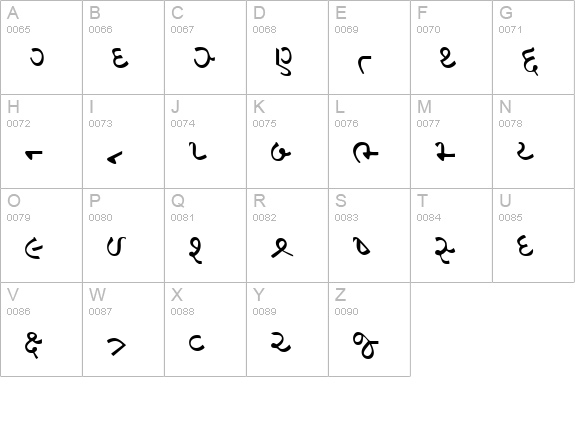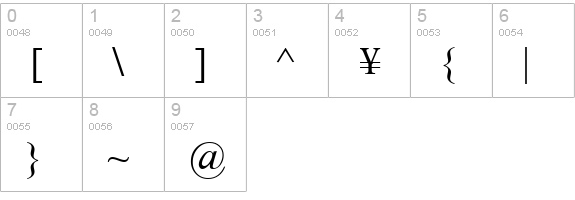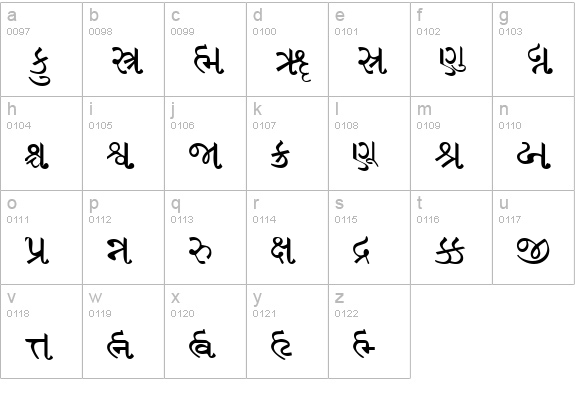
GujaratiRajkotSSK Font Details
GujaratiRajkotSSK font is a beautiful and elegant typeface designed specifically for writing in the Gujarati script. This font is perfect for adding a touch of traditional charm to your projects, whether they are for personal or professional use. With its intricate detailing and graceful curves, GujaratiRajkotSSK font is sure to make your text stand out and leave a lasting impression. The best part about GujaratiRajkotSSK font is that it is available for free download at FontsMarket.com. You can easily access this stunning font and use it in a variety of creative ways without any cost. Whether you are designing invitations, creating graphics, or simply adding a unique flair to your documents, GujaratiRajkotSSK font is an excellent choice. Download it today and elevate your projects with this visually striking typeface.